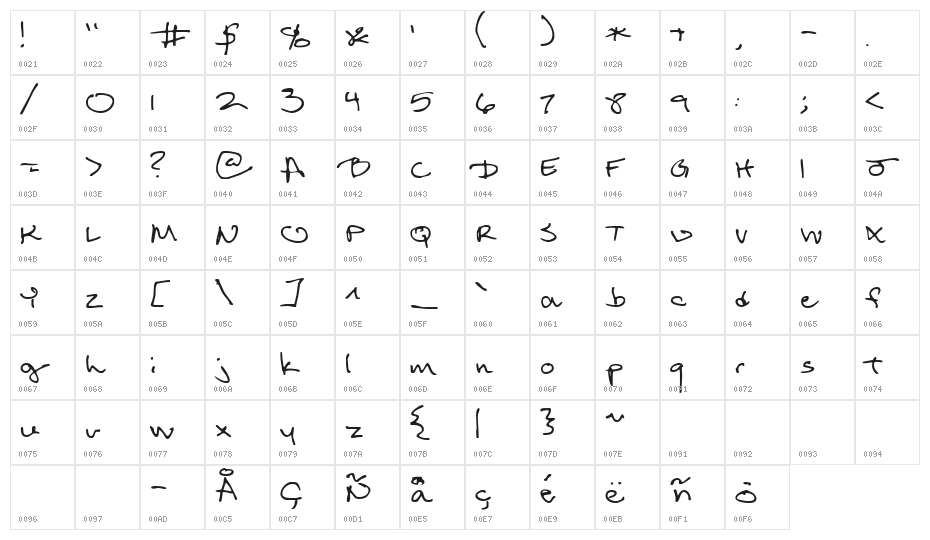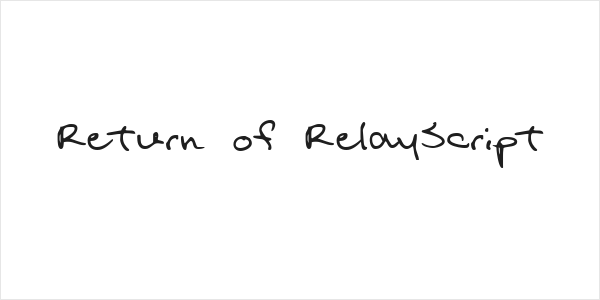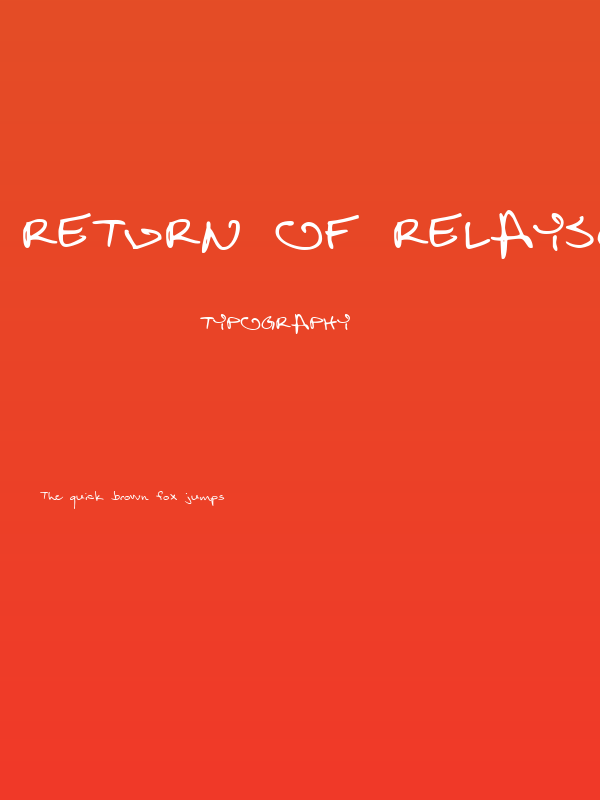
Return of RelayScript Font
Return of RelayScript Description
This font exhibits a casual, handwritten style with a playful and informal appearance. The characters are fluid and dynamic, with a slight slant that adds to the relaxed feel. The strokes are uneven, mimicking the natural flow of handwriting, which gives it a personal touch. The uppercase letters are bold and prominent, while the lowercase letters maintain a consistent flow, making it easy to read. The numerals and special characters are well-integrated, maintaining the overall aesthetic. This font is perfect for projects that require a personal, approachable, and friendly vibe.
| Use Case | Logos, Headlines, Informal Text |
| Proposed Projects | Ideal for greeting cards, personal notes, informal invitations, and creative projects that require a personal touch. |